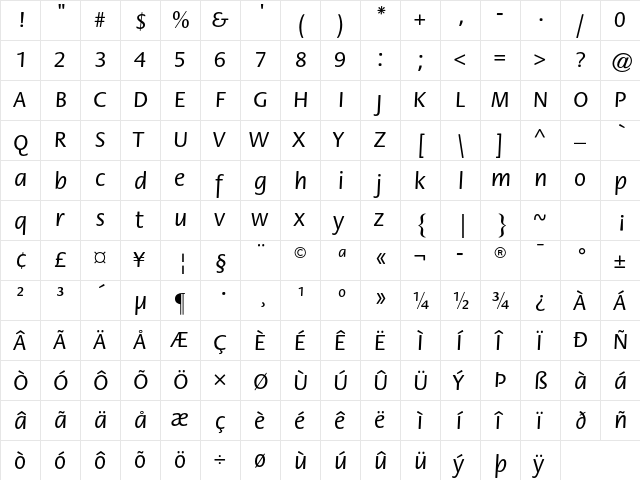
ITC Flora Std Medium
| Designer | Gerard Unger |
Design Context for ITC Flora Std Typeface
ITC Flora Std offers clean, dependable letterforms without strong stylistic allegiance, making it a practical choice for designers who need flexibility.